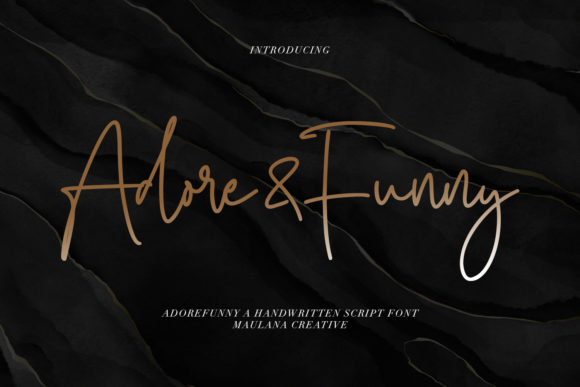
The Font that Stole My Heart: Adore&Funny
I still remember the design project that led me to discover Adore&Funny. I was working on a branding project for a trendy boutique, and I was struggling to find the perfect font that would capture the essence of the brand. The client wanted something modern, yet elegant, and I was on a mission to deliver. That’s when I stumbled upon Adore&Funny, a modern handwritten font that instantly caught my attention.
First Impressions: A Beautiful Handwritten Font
Adore&Funny is a stunning handwritten font that boasts a neat and beautiful arrangement of letters. Its modern design makes it perfect for both formal and non-formal designs, and I was excited to see how it would work for my project. The font’s unique character and charm make it stand out from more traditional fonts, and I knew I had to learn more.
An Honest Review: What I Love and What I Don’t
Here’s my honest review of Adore&Funny:
- ✨ Unique character: Adore&Funny has a distinct personality that sets it apart from other fonts.
- ✅ Elegant and modern: The font’s clean lines and beautiful arrangement of letters make it perfect for modern designs.
- 💕 Versatile: Adore&Funny works well in both formal and non-formal designs, making it a great addition to any designer’s toolkit.
While Adore&Funny is an amazing font, there are a few things to keep in mind:
- 🤔 Limited use in very formal designs: While Adore&Funny is elegant, it may not be the best choice for very formal designs, such as corporate reports or academic papers.
- ⚠️ Some letters may require manual kerning: As with any font, some letters may require manual kerning to ensure optimal spacing and readability.
- Experiment with OpenType features, such as glyphs and stylistic alternates, to add more personality to your design.
- Take advantage of OpenType features, such as ligatures and stylistic sets, to add more depth to your design.
The Designer Inspiration Behind Adore&Funny
While I couldn’t find any information on the designer behind Adore&Funny, I like to think that it was created by a team of designers who were passionate about creating a beautiful, modern handwritten font. Perhaps they were inspired by the elegance of traditional calligraphy and the playfulness of modern digital design.
Q: What is Adore&Funny?
A: Adore&Funny is a modern handwritten font with a neat and beautiful arrangement of letters.
Q: Is Adore&Funny suitable for formal designs?
A: While Adore&Funny is elegant and modern, it may not be the best choice for very formal designs, such as corporate reports or academic papers.
Q: Does Adore&Funny support OpenType features?
A: Yes, Adore&Funny supports OpenType features, such as glyphs and stylistic alternates, which can add more personality and depth to your design.